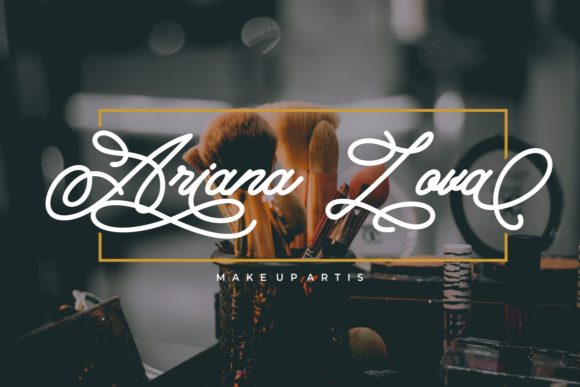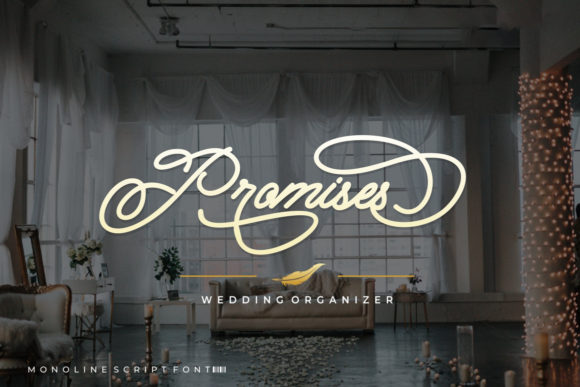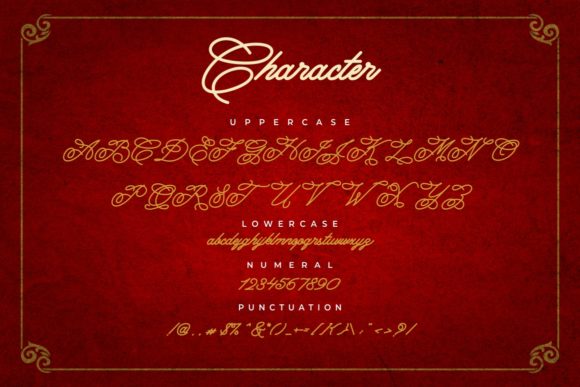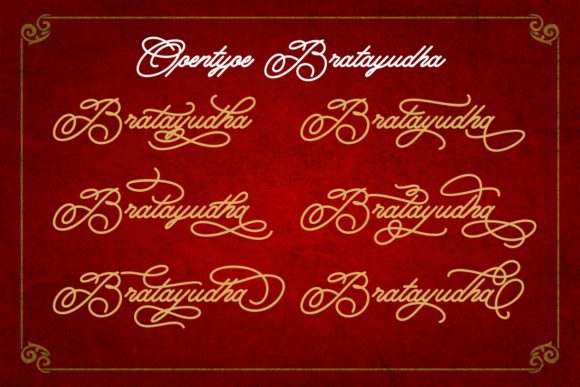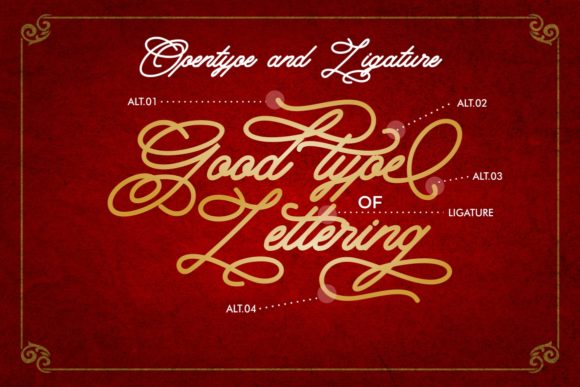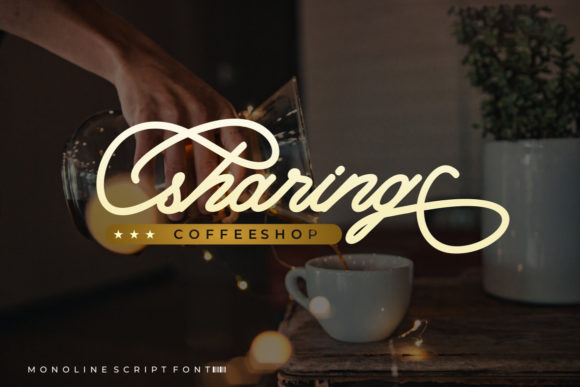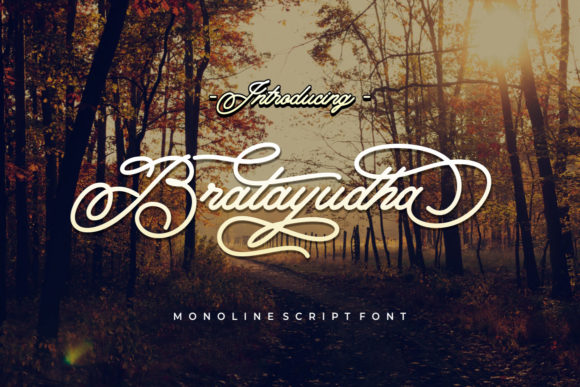
Bratayudha Font: Elevate Your Designs with Elegance and Flair
Are you a designer or crafter looking for a font that exudes elegance and sophistication? Look no further than the stunning Bratayudha Font. This beautiful handwritten font is perfect for adding a touch of luxury and refinement to any design project. In this article, we’ll dive into the features and benefits of Bratayudha Font, and explore how it can elevate your designs to the next level.
A Font that Flows with Elegance
Bratayudha Font is a true masterpiece of typography. With its incredibly elegant and flowing lines, this font is sure to captivate your audience and leave a lasting impression. The font features a varying baseline, which gives it a unique and organic feel that’s perfect for designs that require a handwritten touch. Whether you’re working on wedding invitations, thank you cards, quotes, greeting cards, logos, or business cards, Bratayudha Font is the perfect choice.
Key Features of Bratayudha Font
- Varying Baseline: The font’s varying baseline gives it a natural, handwritten feel that’s perfect for designs that require a personal touch.
- Smooth Lines: The smooth lines of Bratayudha Font make it easy to read and give it a luxurious feel.
- Gorgeous Glyphs: The font features a range of beautiful glyphs that add an extra layer of elegance to your designs.
- Stunning Alternates: With a range of alternate characters to choose from, you can add even more personality and flair to your designs.
Use Bratayudha Font for:
- Wedding Invitations: Add a touch of elegance and sophistication to your wedding invitations with Bratayudha Font.
- Thank You Cards: Express your gratitude in style with this beautiful font.
- Quotes: Make your quotes stand out with the elegant lines of Bratayudha Font.
- Greeting Cards: Create stunning greeting cards for any occasion with this versatile font.
- Logos: Use Bratayudha Font to create a luxurious and professional logo for your business.
- Business Cards: Elevate your business cards with the smooth lines and elegant feel of Bratayudha Font.
Why Choose Bratayudha Font?
With so many fonts to choose from, why choose Bratayudha Font? Here are just a few reasons why this font stands out:
- Unique and Elegant: Bratayudha Font is a truly unique and elegant font that’s sure to make your designs stand out.
- Versatile: This font is perfect for a wide range of design projects, from wedding invitations to business cards.
| Font Name | Bratayudha Font |
| Author | yunitaecy |
In conclusion, Bratayudha Font is a stunning handwritten font that’s perfect for designers and crafters looking to add a touch of elegance and sophistication to their designs. With its varying baseline, smooth lines, gorgeous glyphs, and stunning alternates, this font is sure to elevate your designs to the next level. Whether you’re working on wedding invitations, thank you cards, quotes, greeting cards, logos, or business cards, Bratayudha Font is the perfect choice. So why wait? Try Bratayudha Font today and see the difference it can make in your designs!